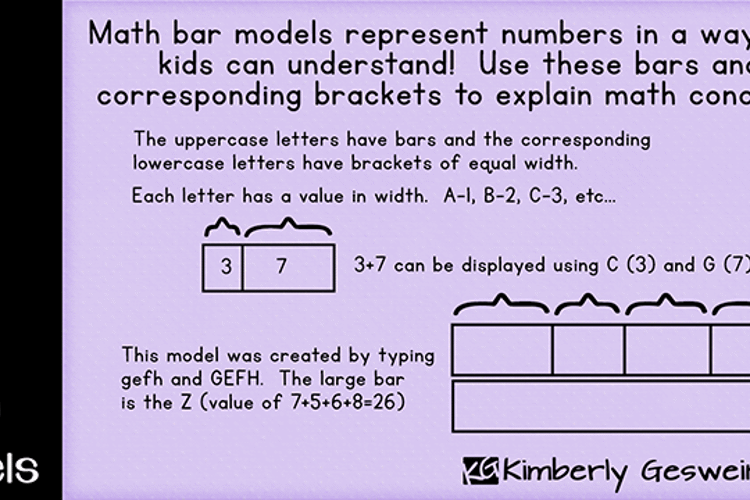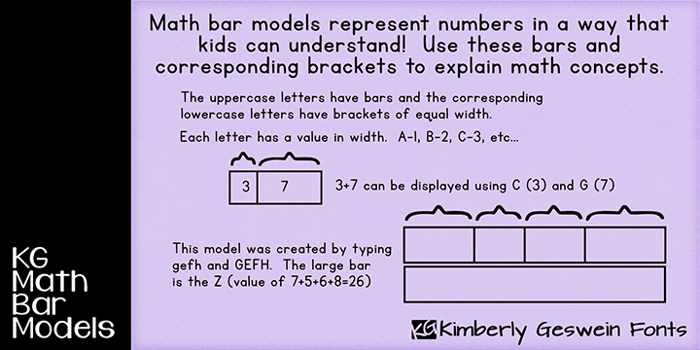
KG Math Bar Models Font
About KG Math Bar Models Font
This was created specifically for teachers and parents to help display visual representations of word problems. Each letter correlates to a value and the upper and lowercase share the same width. For example, if you want to display 1 + 9 = 10, the A represents the 1 and the lowercase a has the 1 width bracket. The I represents the 9 bar and the lowercase 9 represents the 9 width bracket. To show the full width, you would use the 10 which represented by the J. A-1, B-2, C-3, etc...